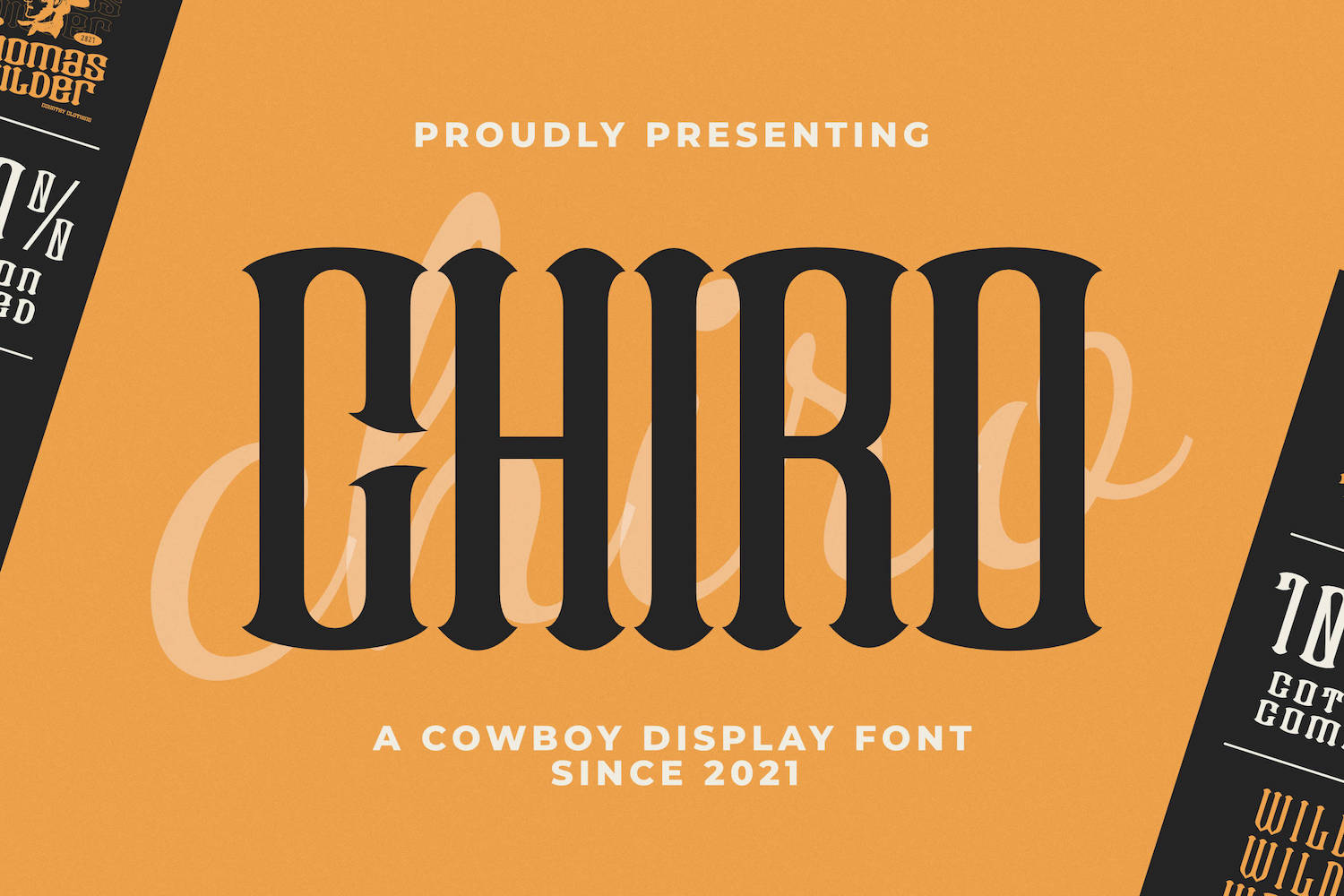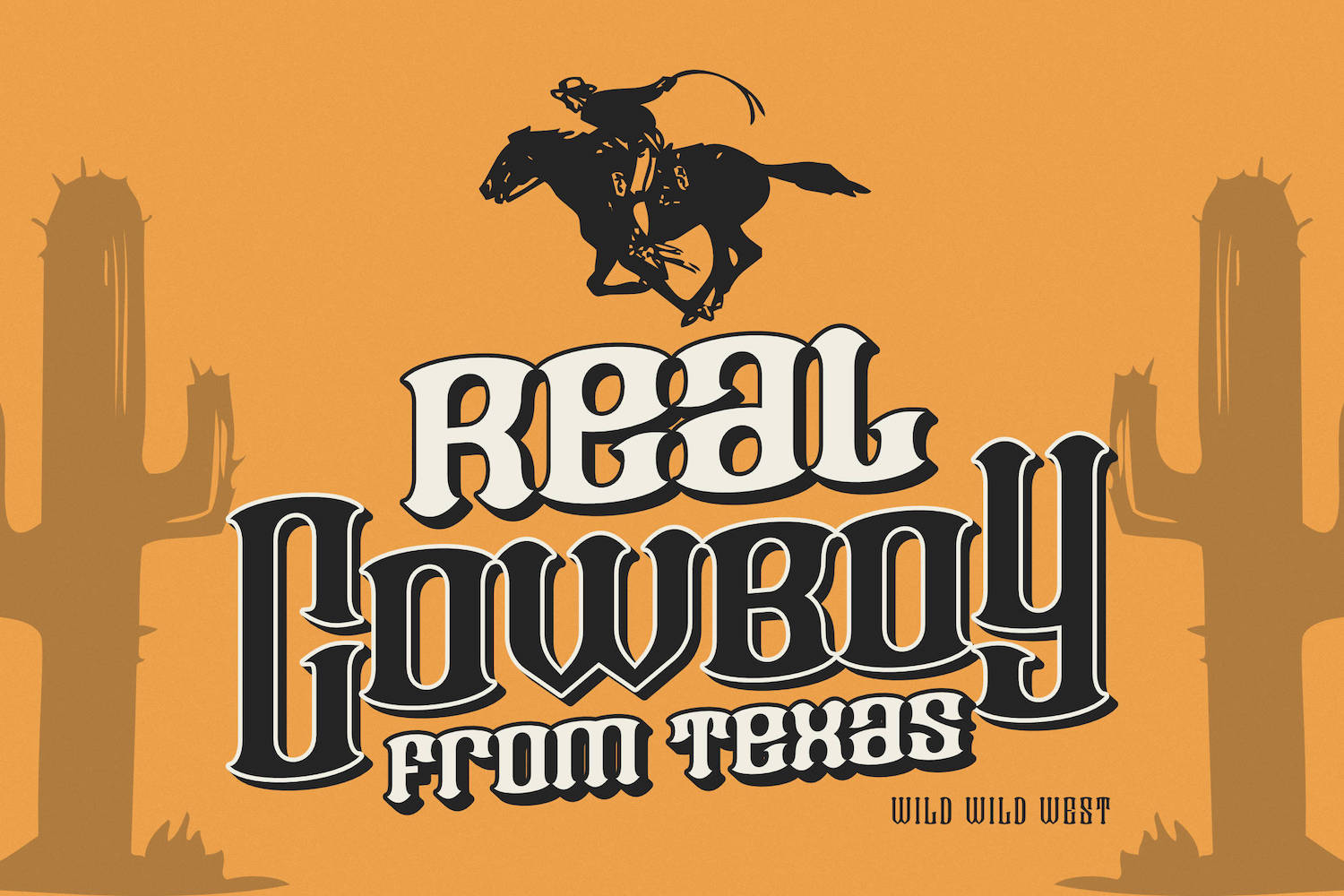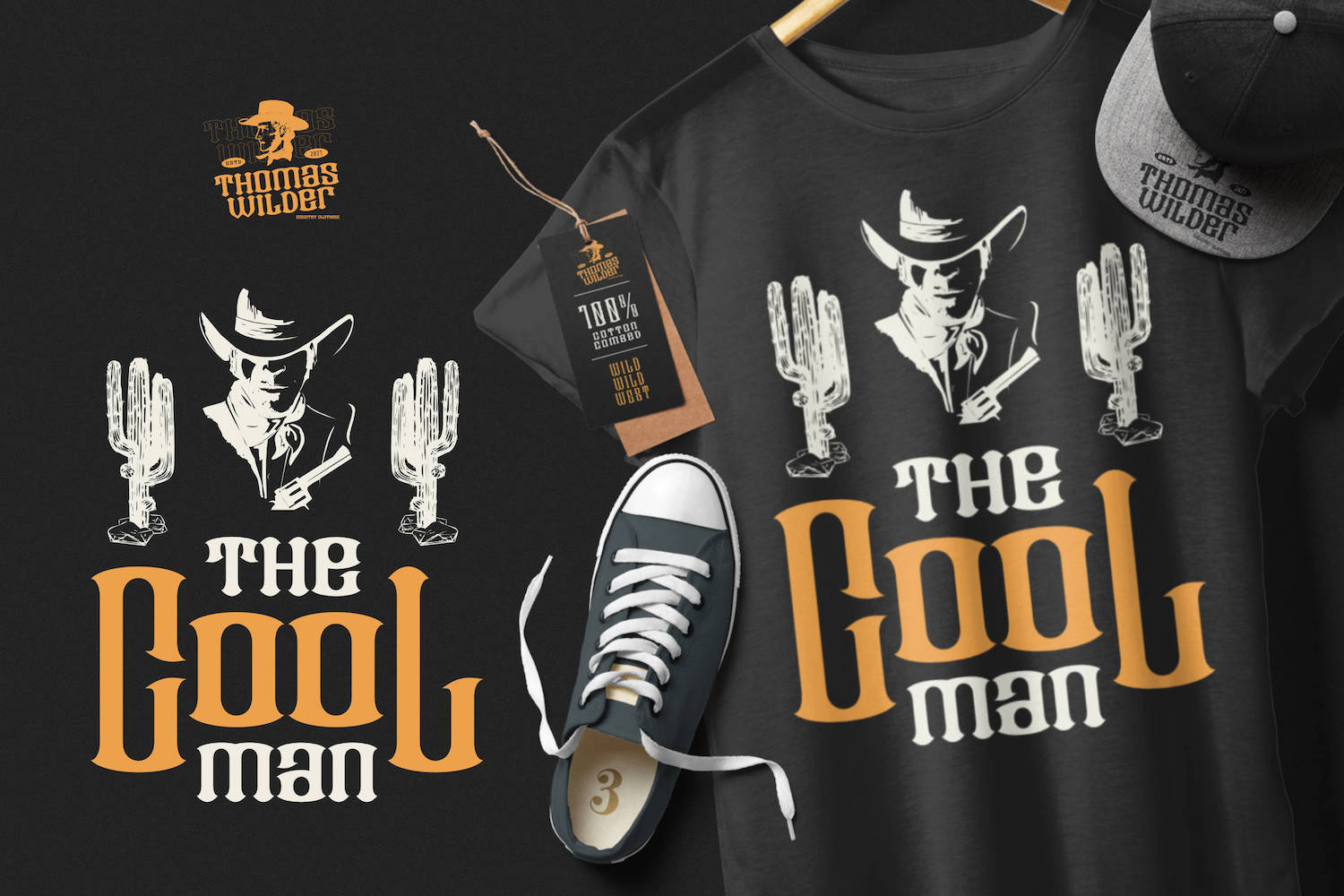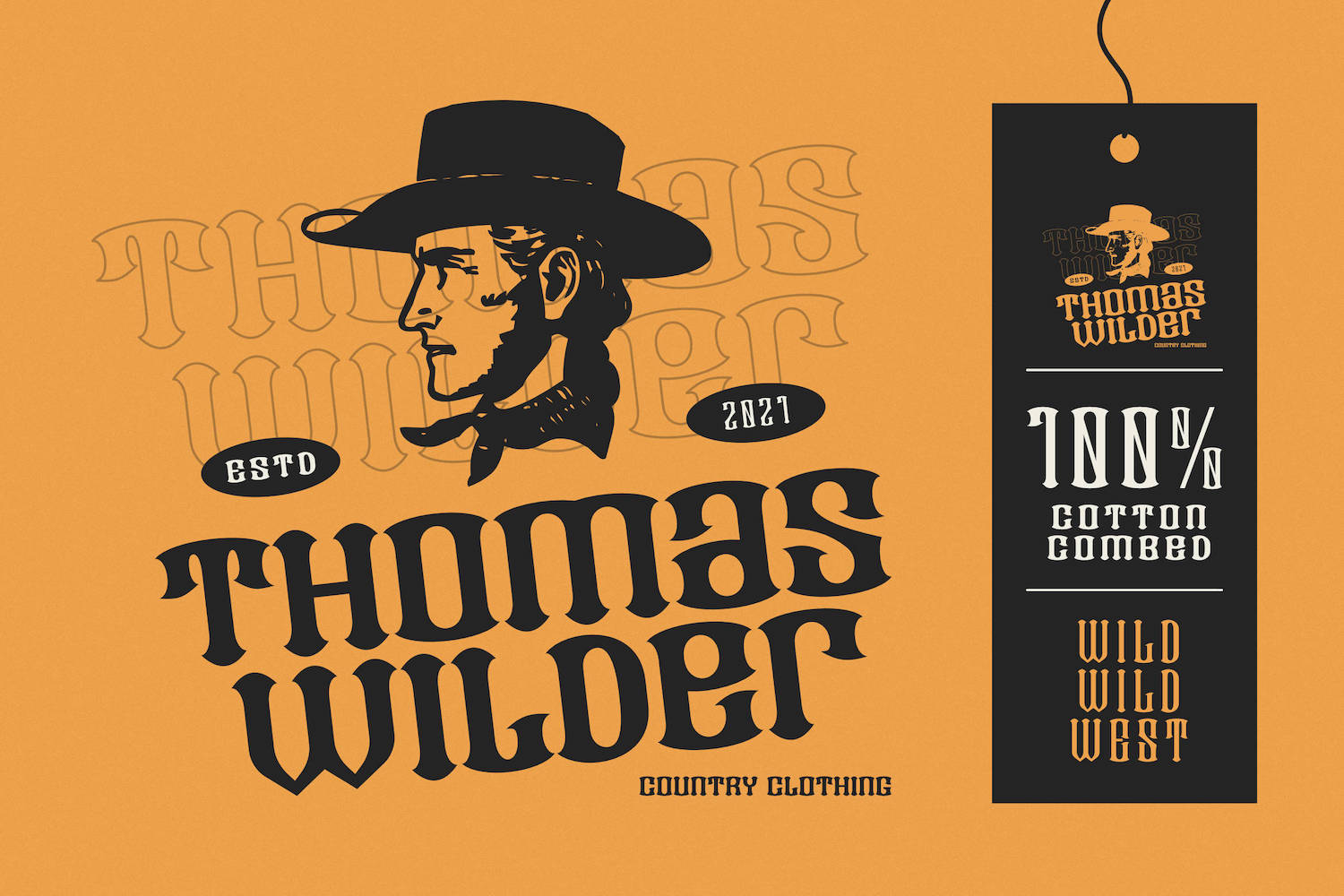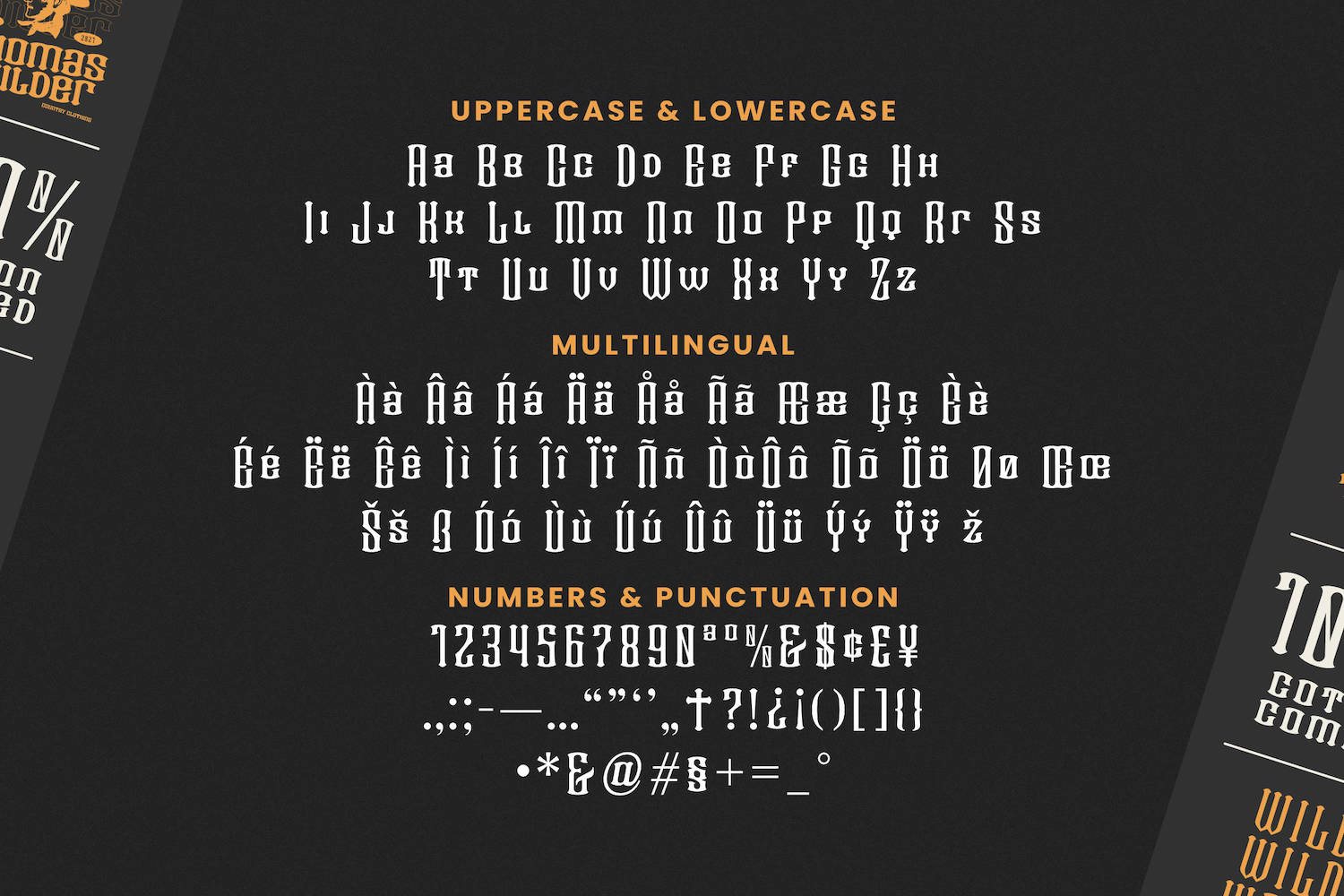
Chiro is a bold and powerful cowboy display font inspired by vintage Western aesthetics and old signage typography. With its strong vertical strokes, dramatic curves, and gothic serif details, Chiro delivers a perfect blend of rugged charm and decorative flair. This typeface is ideal for logos, apparel designs, branding, and signage that seek to evoke the wild and fearless spirit of the frontier.
This font supports multilingual characters and comes with a complete set of uppercase, lowercase, punctuation, and symbols. Making it highly versatile for various display uses. Whether you’re designing for a Western-themed project or looking to add bold personality to your headline, Chiro brings a distinctive character that commands attention.